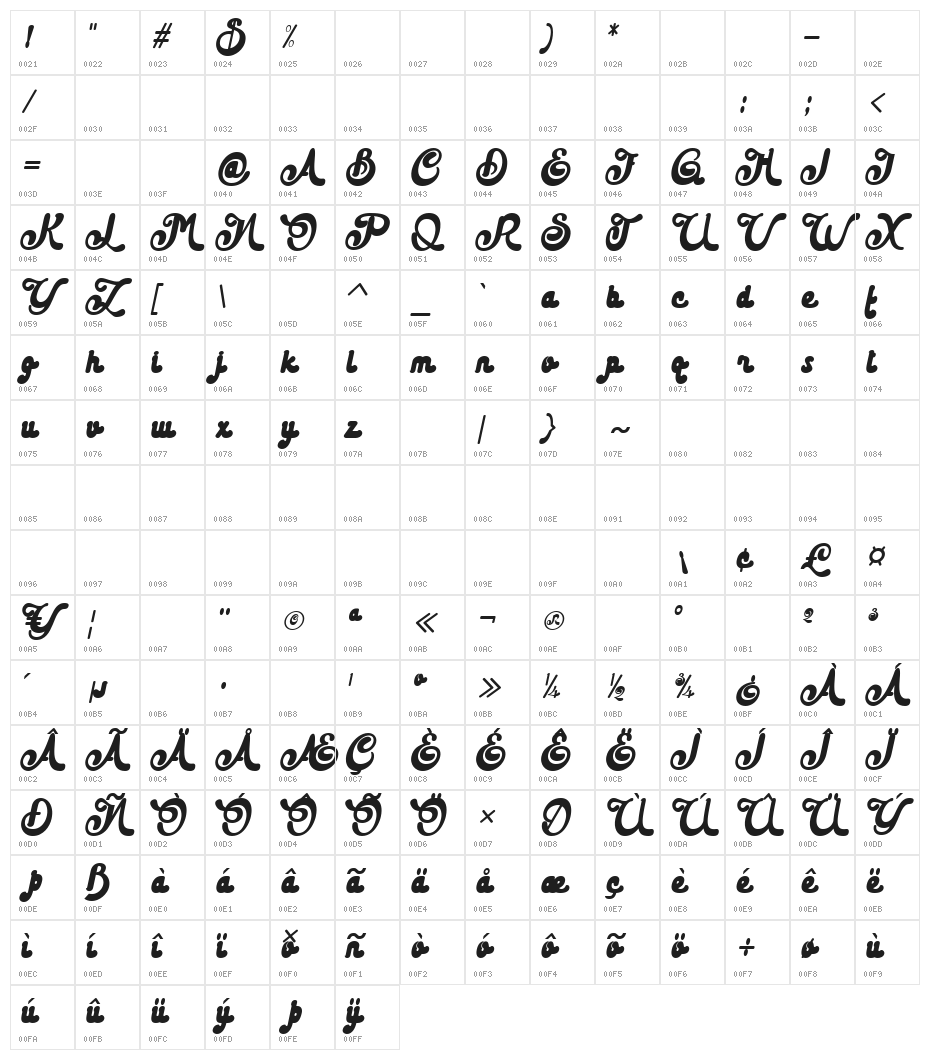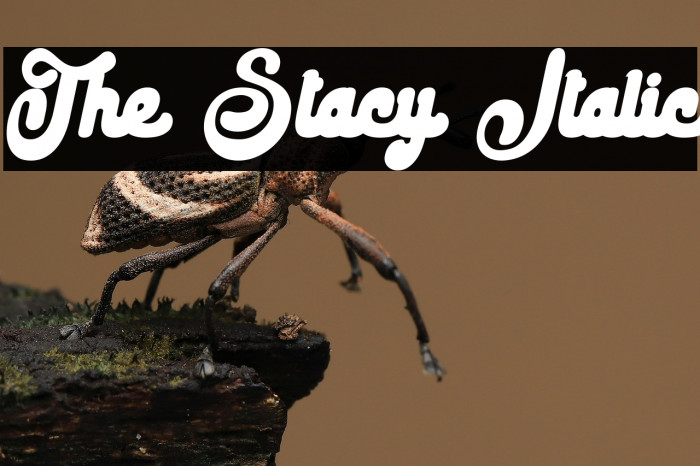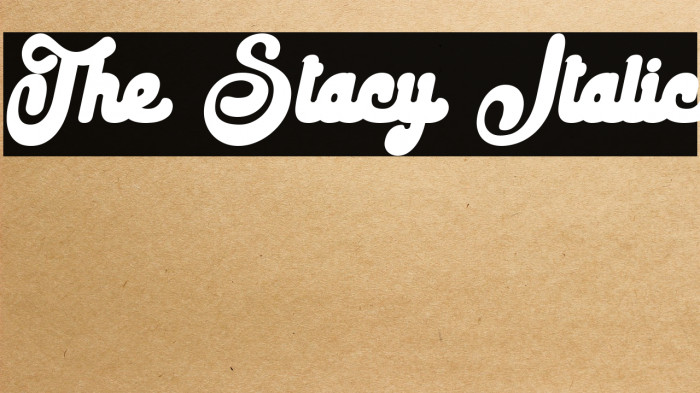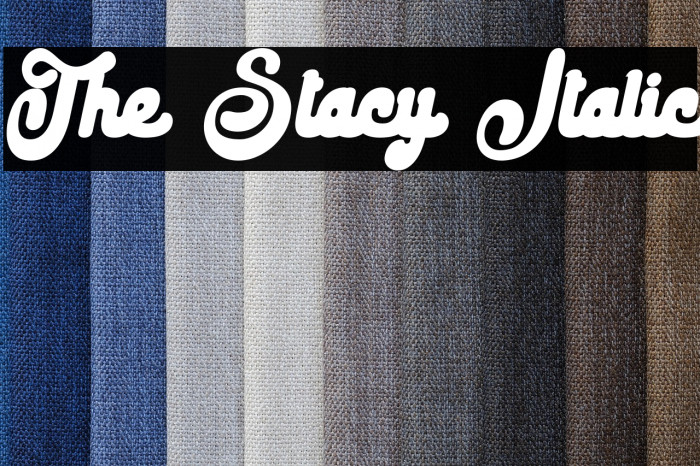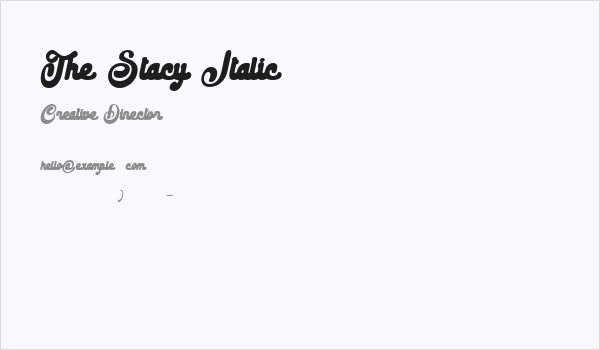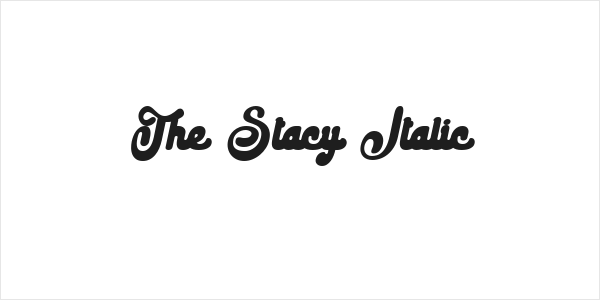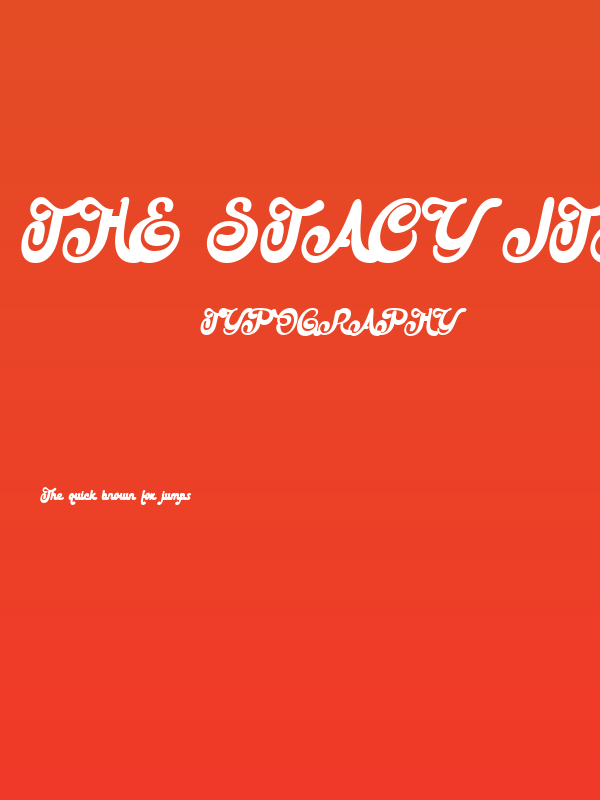
The Stacy Italic Font
The Stacy Italic Description
This font features a bold and playful script style with a distinct italic slant. The uppercase letters are characterized by their swirling, decorative loops, giving them a whimsical and artistic flair. The lowercase letters maintain a consistent thickness, creating a smooth and cohesive appearance. The numbers and special characters follow the same bold and decorative style, ensuring uniformity across all glyphs. The font's unique design makes it stand out, with its high contrast and thick strokes, making it ideal for eye-catching displays.
Proposed ProjectsIdeal for creative projects such as logo design, branding, posters, and invitations where a playful and artistic touch is desired.